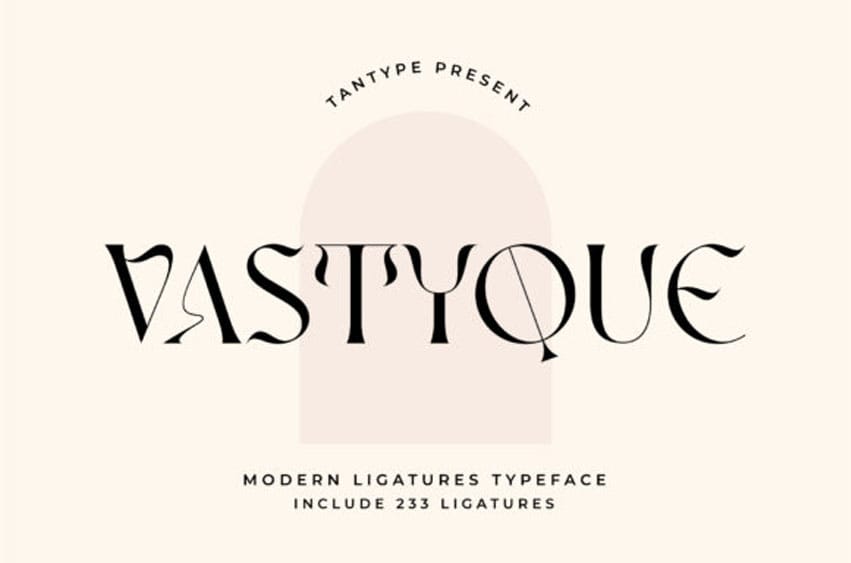
Vastyque Font is an elegant and modern sans-serif typeface. Its minimalist, clean design makes it suitable for a variety of applications, including book covers, magazines, social media posts, invitations, and more.